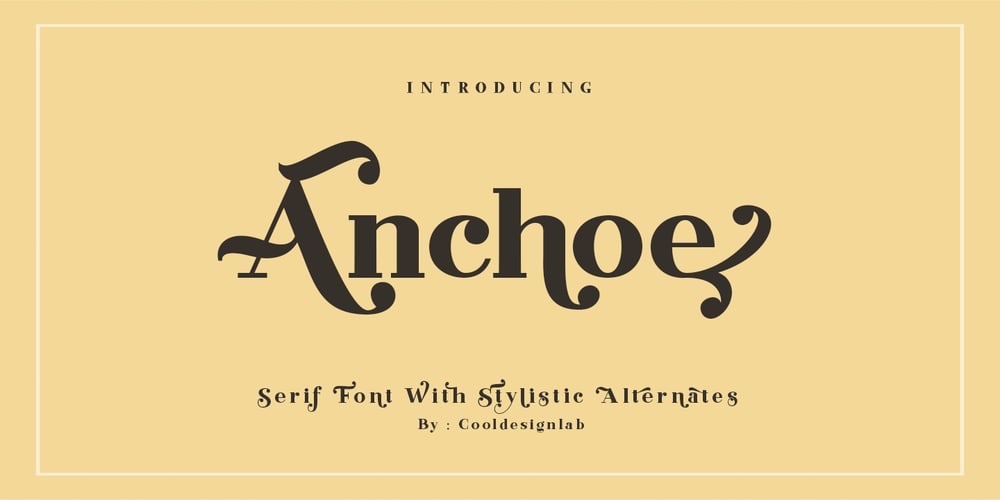
Anchoe Font Family was designed by Kurniadi Saputra and published by Cooldesignlab. Anchoe contains 1 styles and family package options. Anchoe is a bold, unique, fashionable, luxurious, modern and elegant serif with lots of ties and alternatives that will make your presentation more amazing and stand out! Anchoe supports Multi Languages and PUA has been coded.This font is versatile and perfect for any modern project including branding designs, logos, invitations, wedding decorations, website designs, Instagram, business cards, and more.Feature:Uppercase + LowercaseNumbers + PunctuationOpenType featuresMultilingual supportIf you have questions, feel free to contact me via Gmail: Cooldesignlab@gmail.com.Give us “like” and support our work. Thank you very much.Enjoy !!!